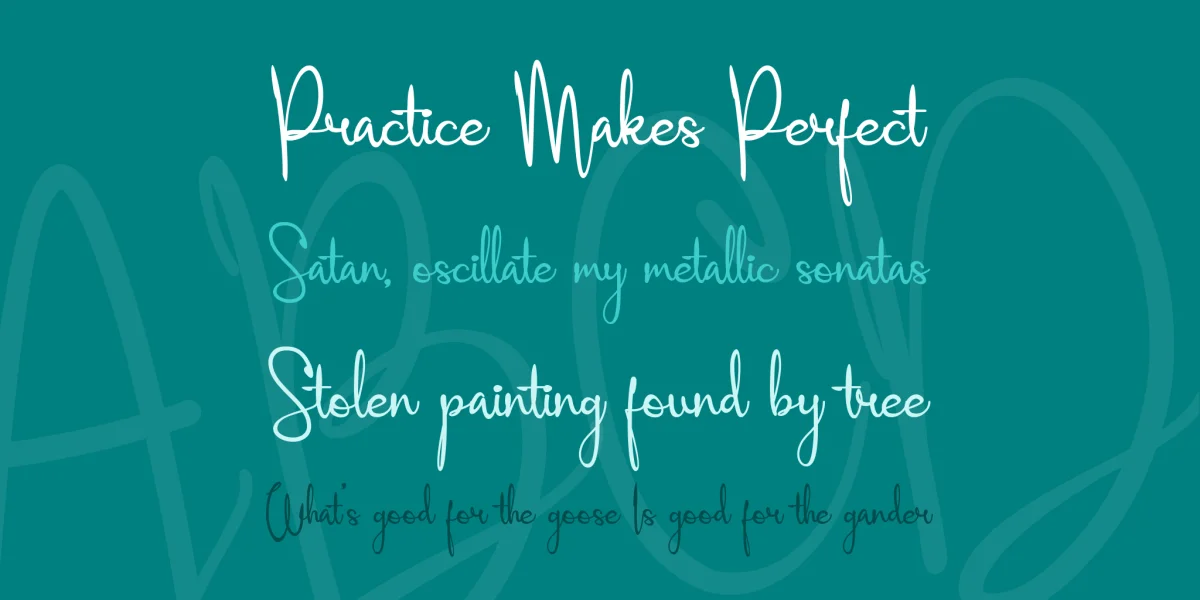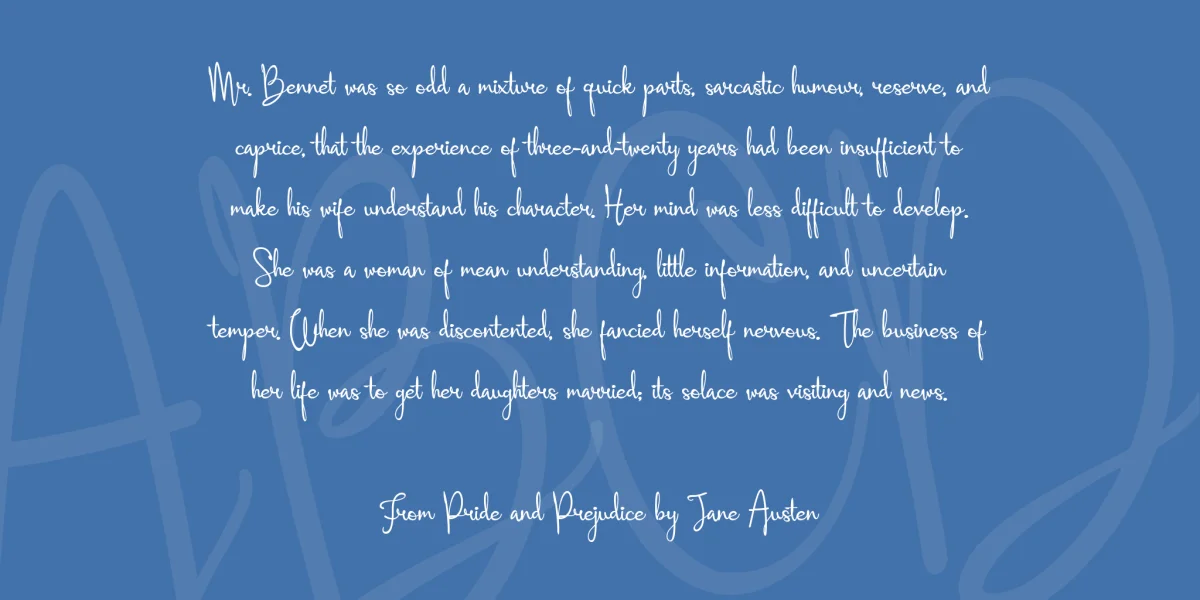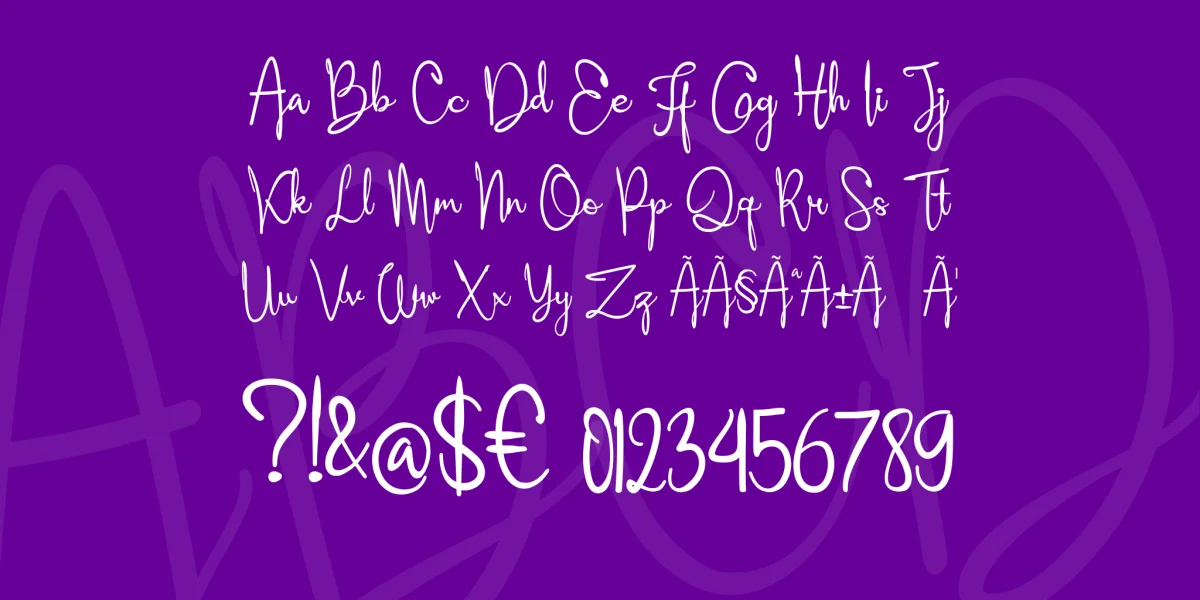
Aleyna is a stunning lovely handwritten font. The font has smooth curve, so would be perfect for all types of printing techniques. You can do embroidery, laser cut, gold foil etc. Aleyna is a beautiful, smooth handwritten font that is perfect for projects that need an elegant headline font. Aleyna is a cutesy handwritten font. It can be used for various purposes such as: logos, magazines, cover albums, quotes, birthday quote and much more. With natural handwritten, the font is the best choice for you.